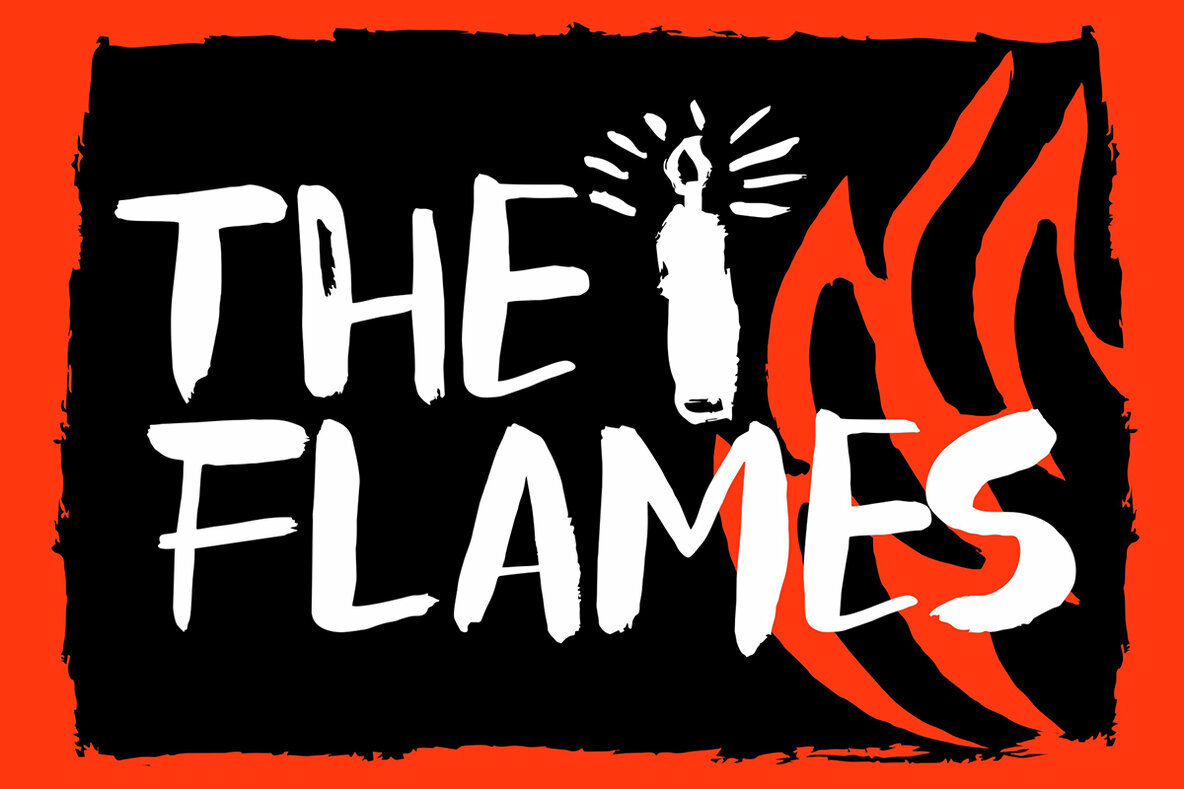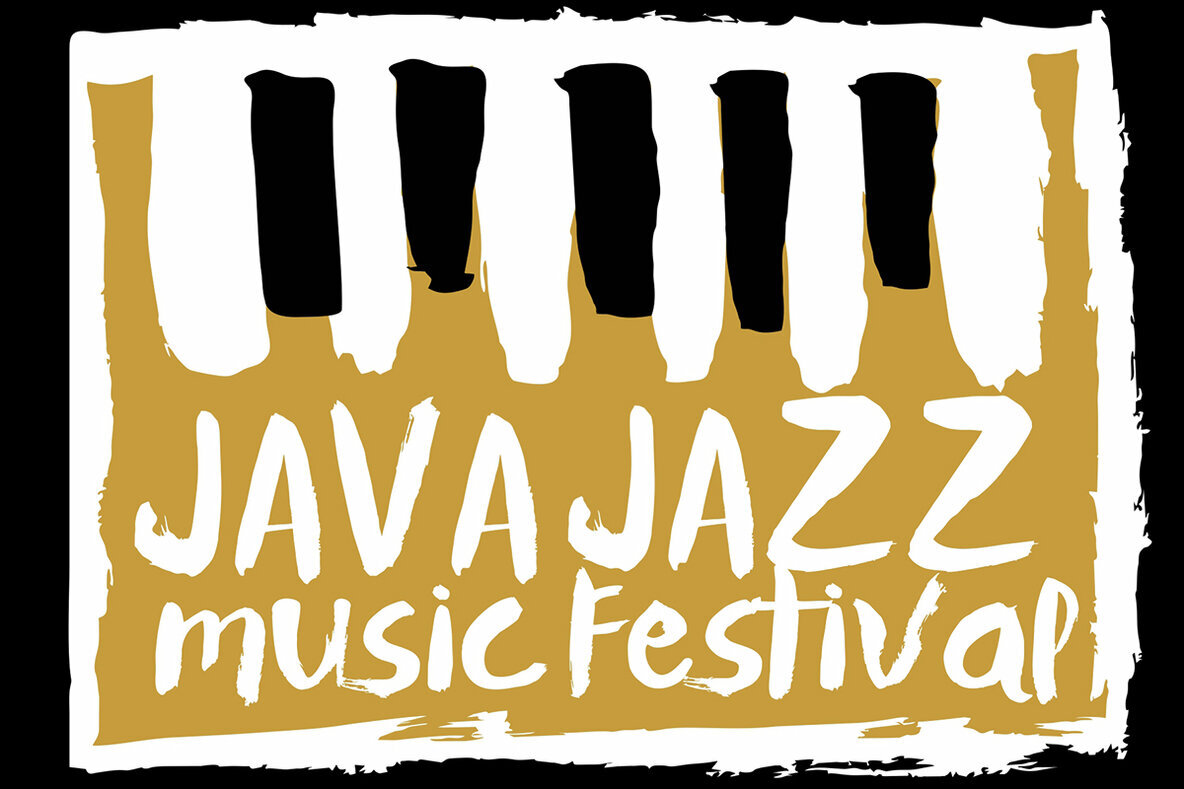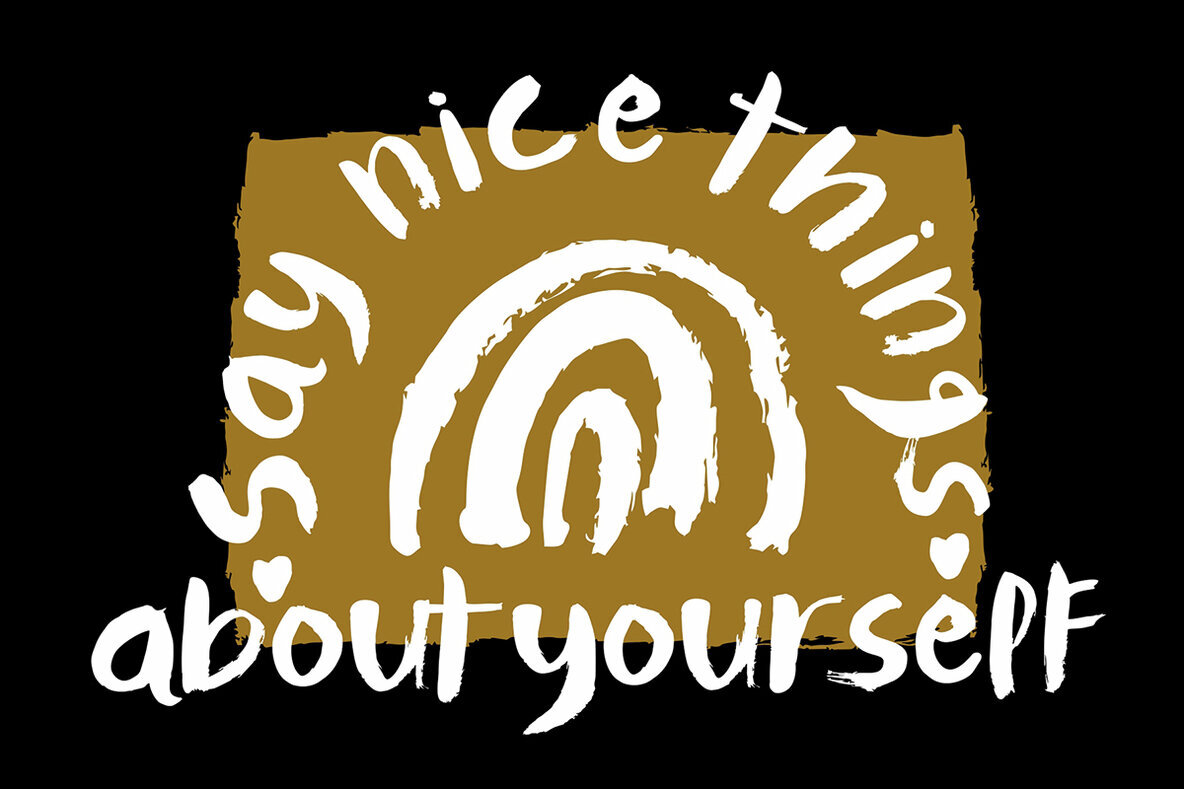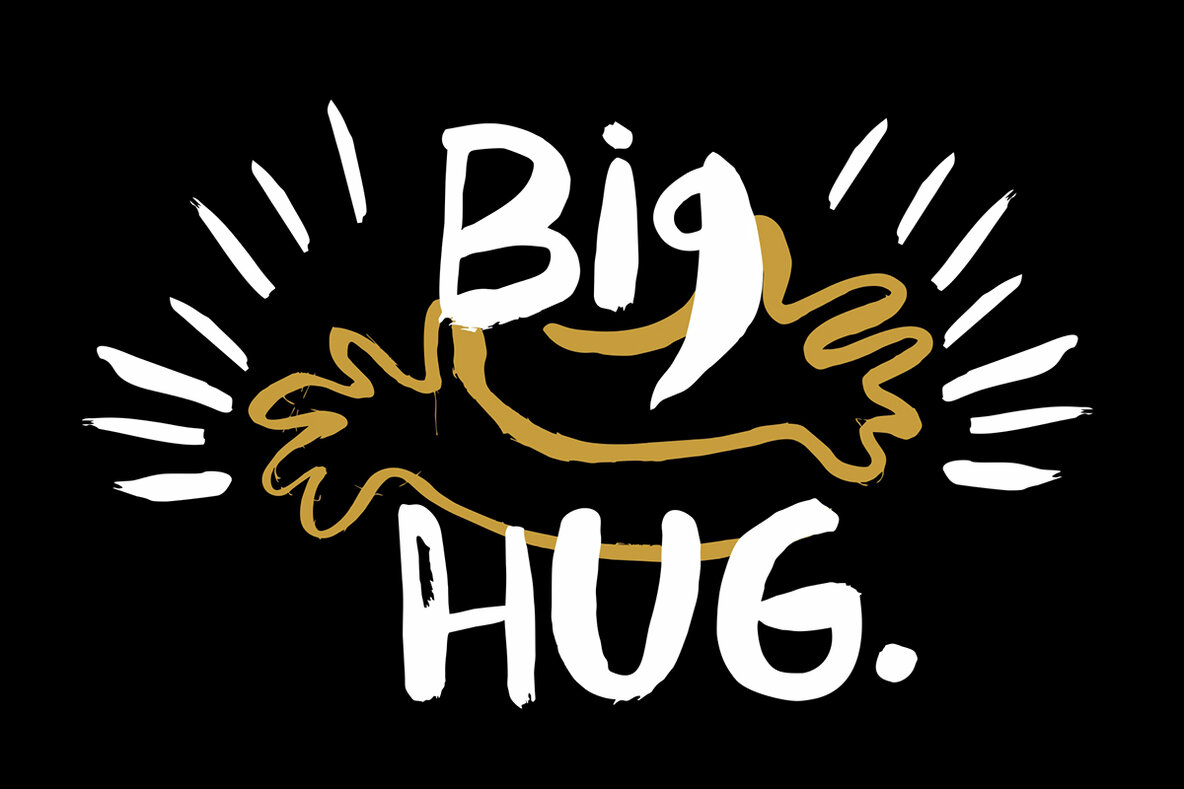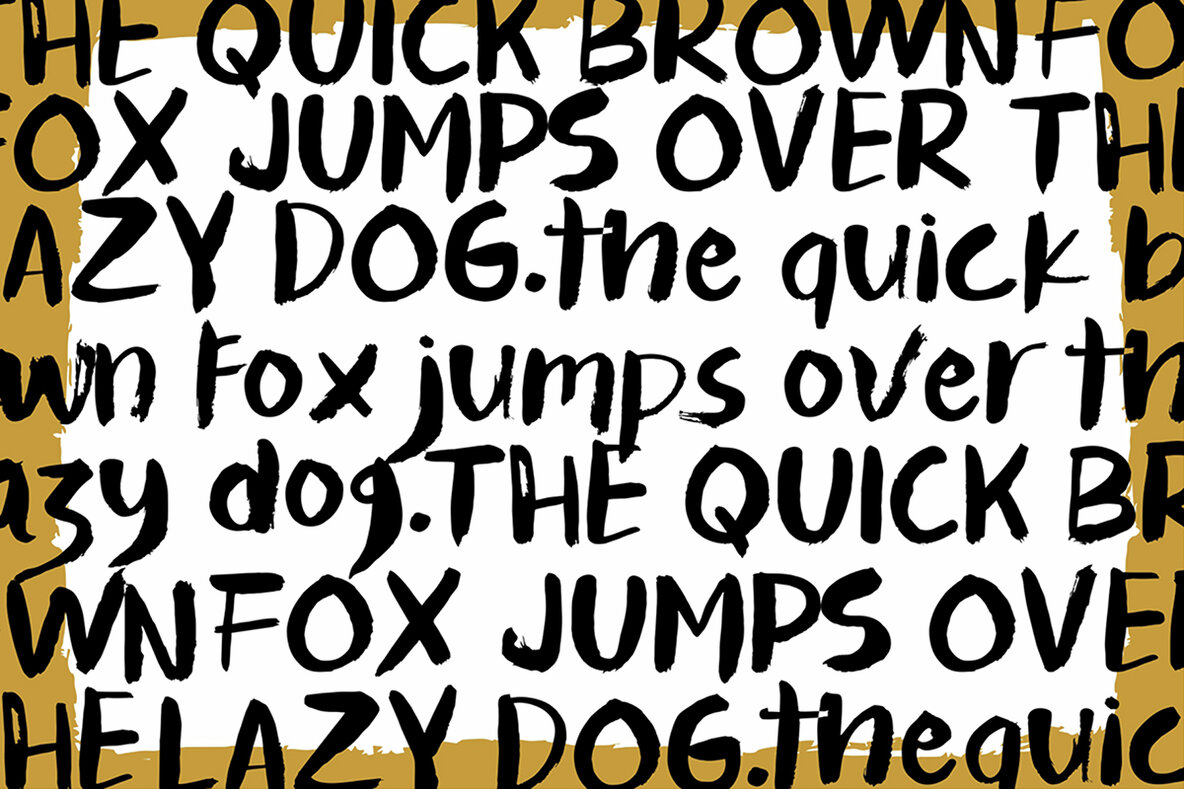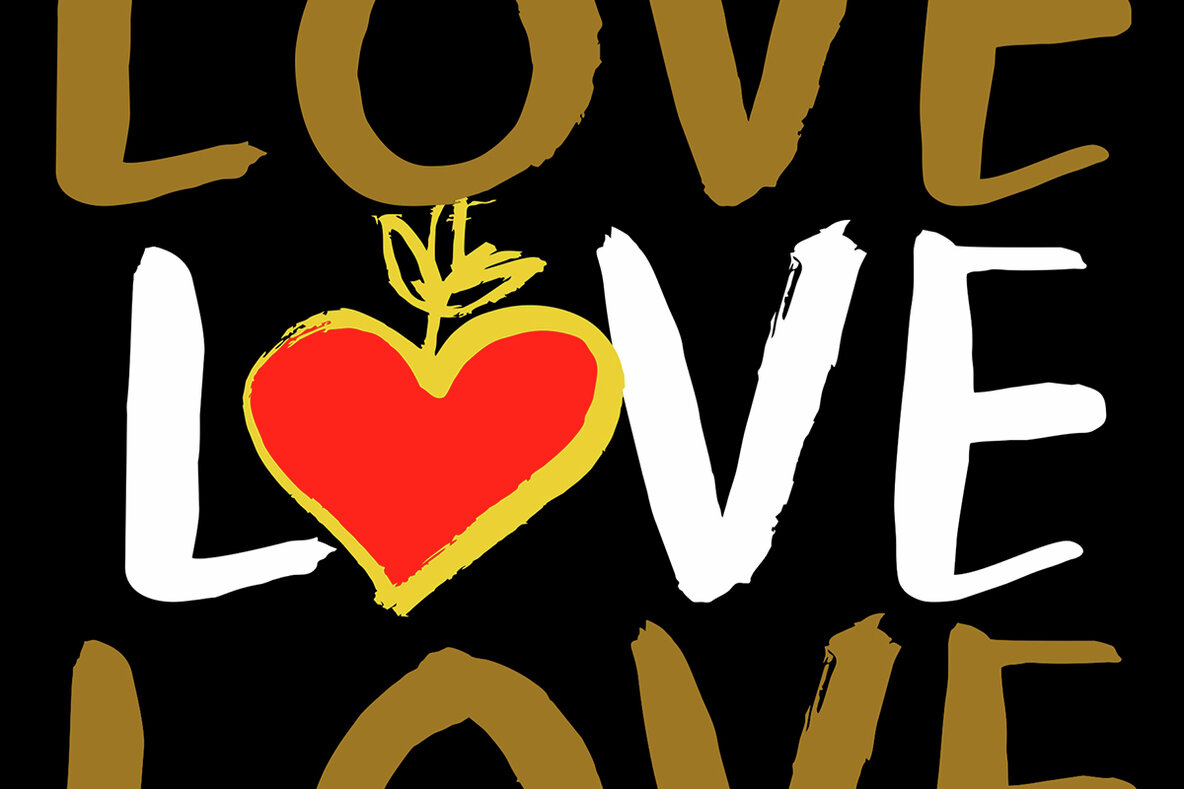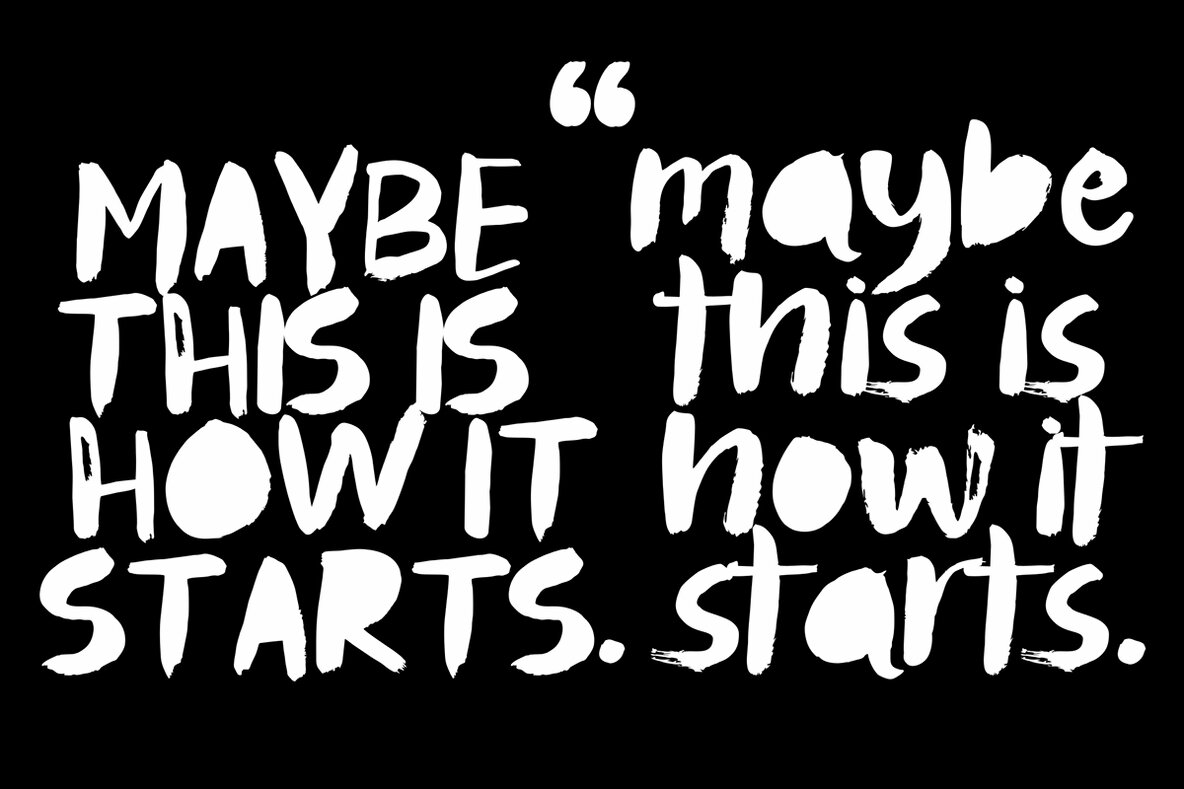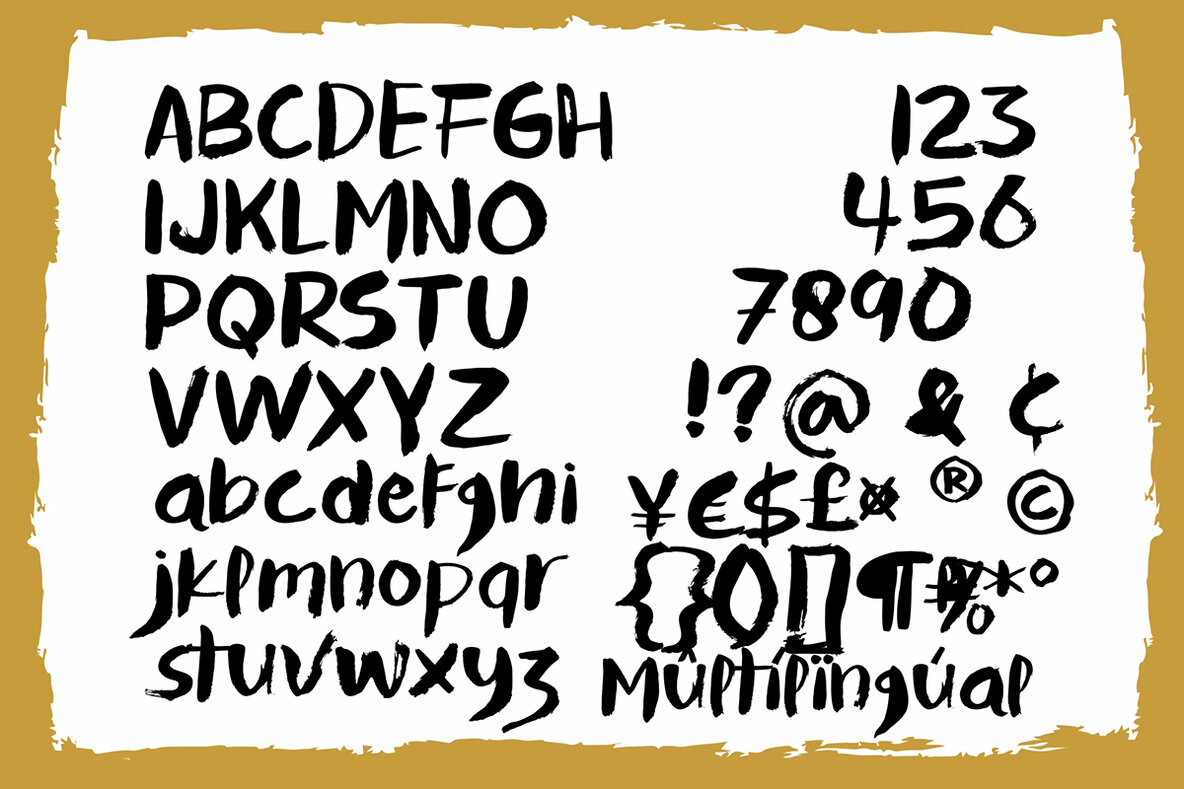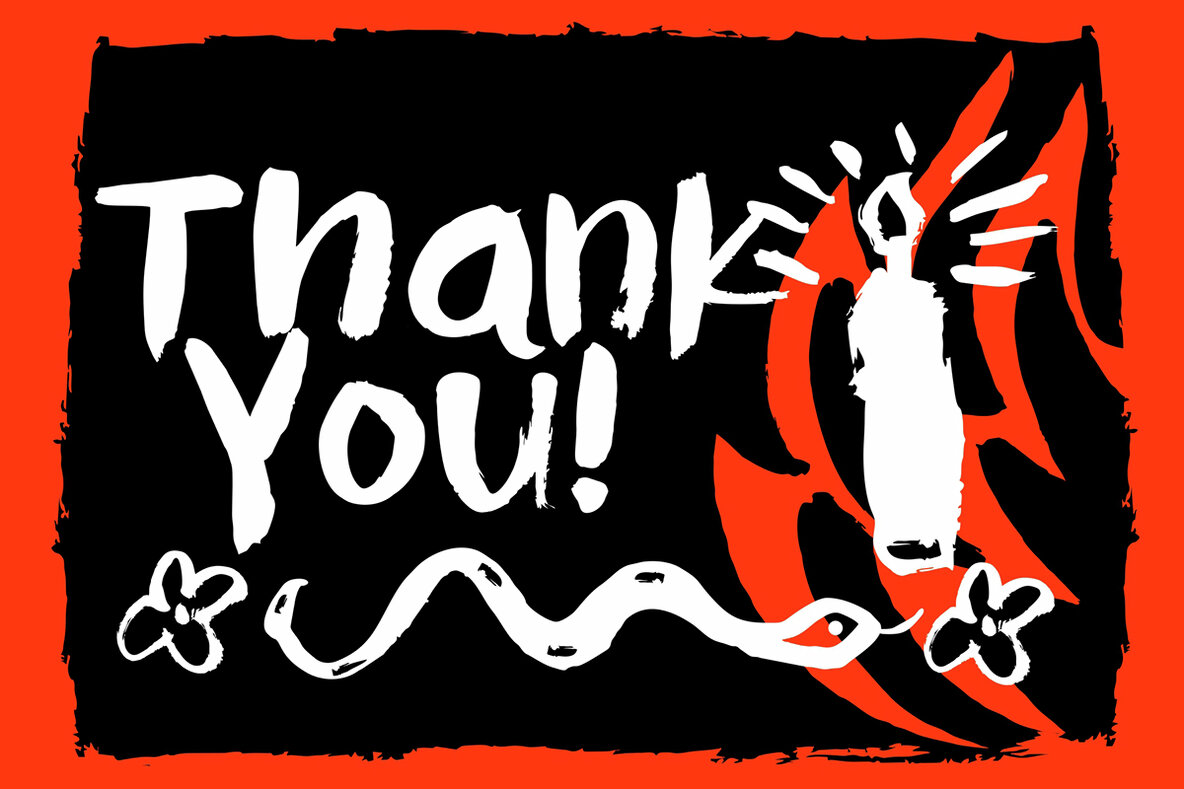
The Flames Font
The Flames
Introducing The Flames, a striking distressed display font that infuses a touch of rustic charm into your design projects. Its hand-drawn essence makes it suitable for a plethora of applications, from crafting and branding to posters, invitations, and social media posts. This versatile font also complements advertisements, product packaging, labels, photography, and various special events seamlessly. The Flames is PUA encoded, providing the accessibility needed for software that lacks OpenType feature support, such as Silhouette and Inkscape, making it a flexible option for diverse design environments.The Flames: Distinct Hand-Drawn Display Font